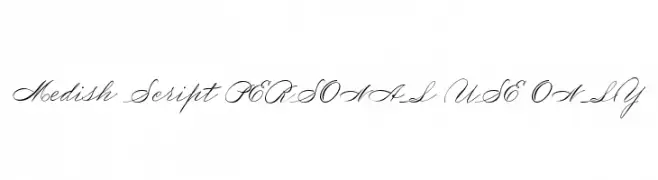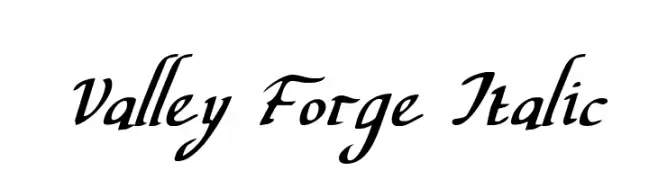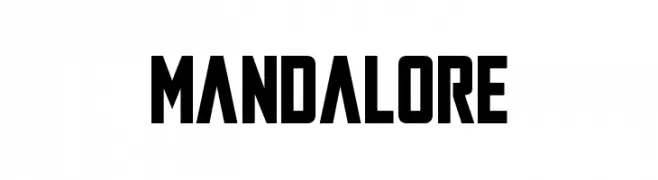
A bold, rounded, and modern font with a playful and approachable style.
A modern sans-serif outline font with an italic slant, offering a dynamic and airy style.
An elegant script font with fluid, interconnected strokes and graceful curves.
A bold, 3D marquee font with decorative bulb embellishments.
A refined serif font with thin strokes and a classic yet modern aesthetic.
A dynamic and elegant italic font with a handwritten appearance.
A bold, geometric font with a futuristic and robust design.
A bold, brush-style script font with dynamic, expressive strokes.